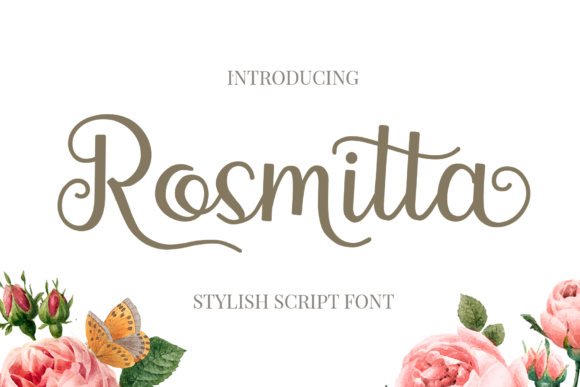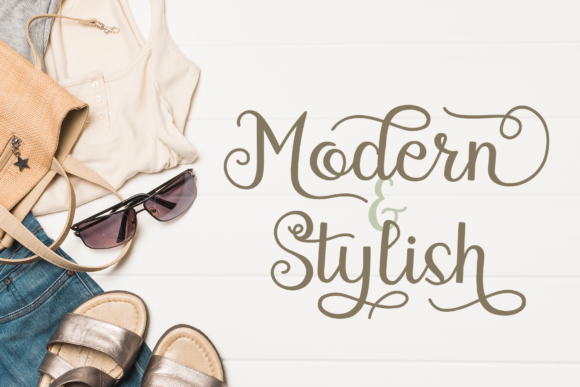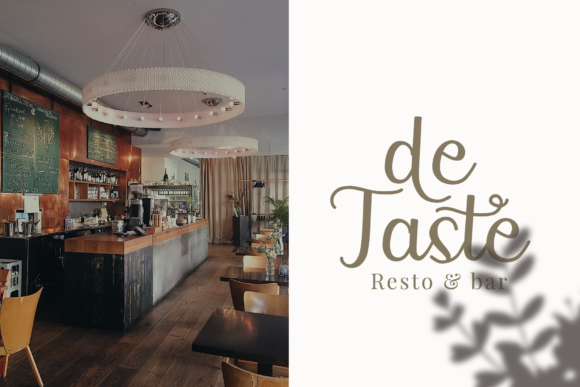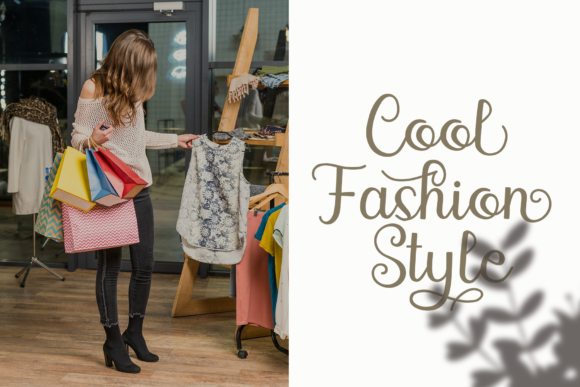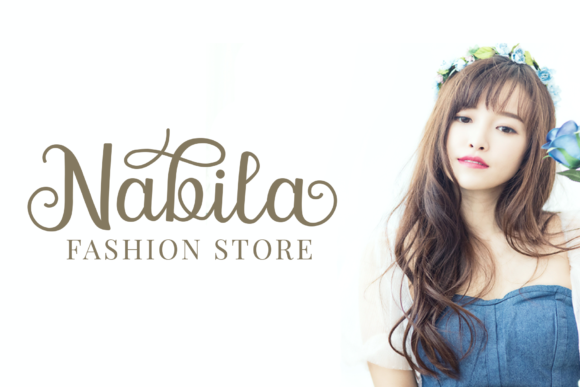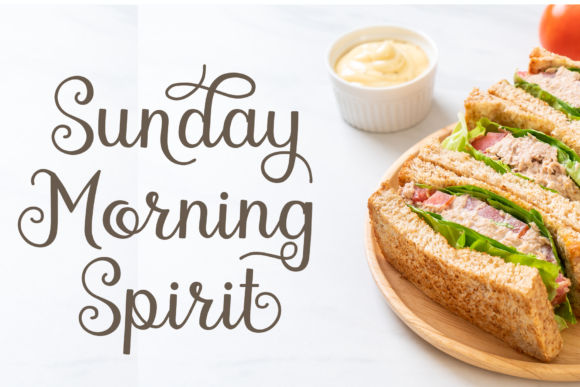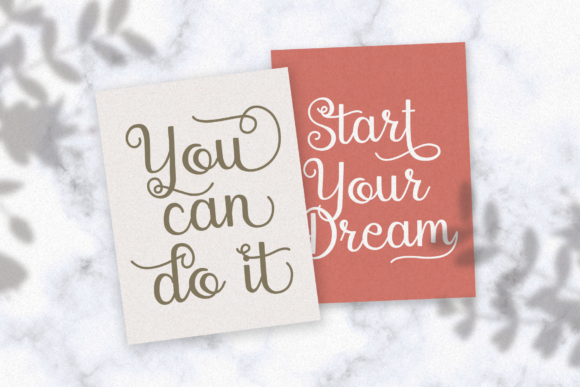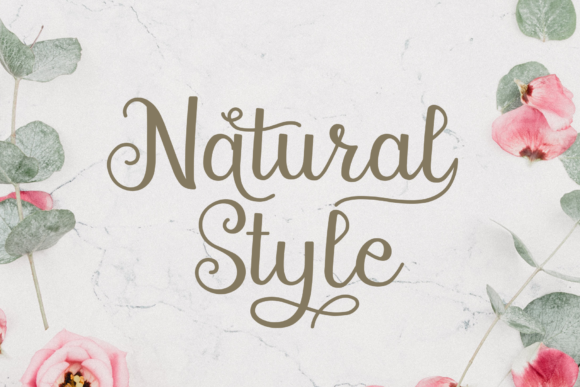
Rosmitta Font
About Rosmitta Font
Rosmitta is a new and stylish script font featuring gorgeous swashes. It will turn any design project into a true standout.